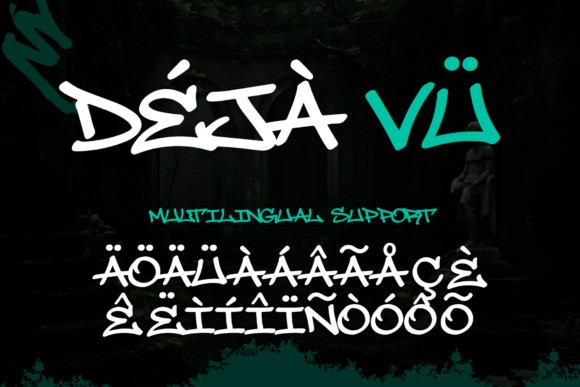
Velum Stroke Font
Velum Stroke Font is a fundamentally raw, hand-scribed graffiti font. Echoing the raw enthusiasm of sprightly graffiti scrawls and channeling the heart of underground culture, Velum Stroke does away with pretentious gloss, putting forth unfeigned, street-chic authenticity. Every line in this font resonates with the signature pulse of graffiti-in-motion, powerfully personal and instantly alive.
Crafted particularly for creatives who value genuine expression in typography, Velum Stroke showcases the beauty of the imperfect. Its letterforms are characterized by an audacious, fluid charm, subtly irregular, virtual echoes of a hand moving in rhythm, leaving graffiti tags in its wake. This uniquely bestows Velum Stroke with an appealing edge, emotional intensity, and an attitude perfect for bold ventures seeking something truly different.
Velum Stroke’s comprehensive selection of uppercase and lowercase letters, numbers, and punctuation marks injects versatility to fit a variety of design needs. Its multilingual support ensures smooth deployment in international endeavors, yet its hardcore street essence remains undiluted.
Regardless of the platform – be it logos, streetwear branding, album covers, posters, headline-grabbing editorials, or eye-catching social media visuals, Velum Stroke demands instant focus. It is an exceptional choice for artists, music producers, apparel brands, and designers who wish to embody a raw, rebellious, unabashedly urban quality in their work.
Specifically, Velum Stroke makes a striking statement in hip hop visuals, skate culture insignia, graffiti-esque merchandise, and daring, experimental layouts. If your design seeks a typographic expression fast-paced, unrefined, and audacious as though conjured up by an inspired hand in real-time, then Velum Stroke offers the perfect, unapologetic choice.